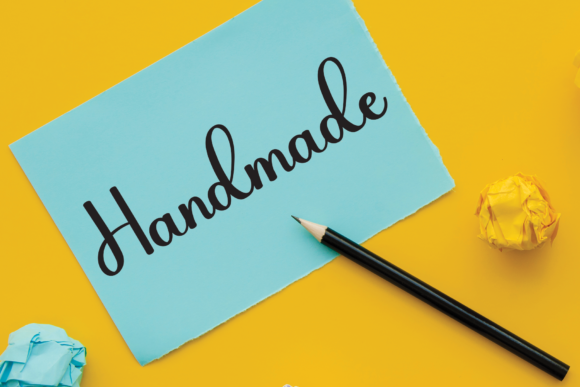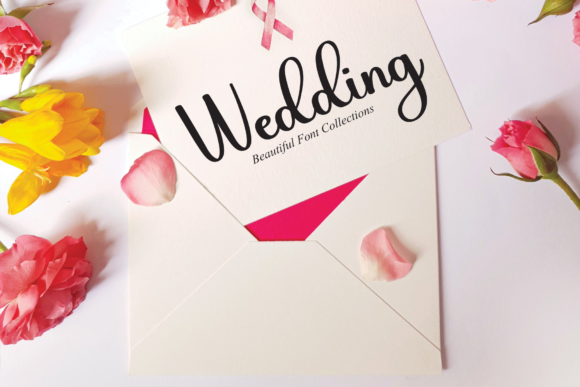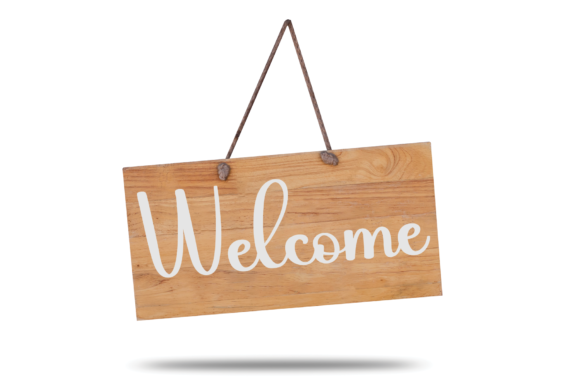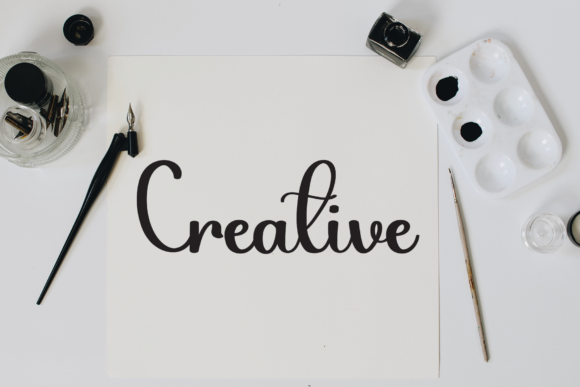
The Magical World of By One Font: A Designer’s Delight
I still remember the time I was working on a luxury branding project for a high-end jewelry client. I had spent hours perfecting the logo design, but something was missing. The font I had chosen just didn’t have that extra oomph I was looking for. That’s when I stumbled upon By One Font, and it completely transformed my design. In this article, I’ll share my love for this beautiful script font, its features, and how to make the most of it in your design projects.
An Honest Review of By One Font
What I Love About By One Font ✨
• 💃 **Elegant and Whimsical**: By One Font is a sweet, fluid, and thin script font that adds a touch of luxury to any design project.
• ✅ **Unique Character**: The font features characters dancing along a baseline, giving it a playful and eye-catching feel.
• 🌈 **Versatile**: Perfect for branding, packaging, invitations, and more, By One Font can elevate a wide range of design projects.
• 💻 **Easy to Read**: Despite its whimsical nature, the font remains clear and readable, even at smaller sizes.
• ⚠️ **Limited Use in Body Text**: Due to its script nature, By One Font might not be the best choice for lengthy body text. It’s better suited for headings or titles.
• 🤔 **Kerning Issues**: As with any script font, you might encounter kerning issues. Make sure to adjust the tracking and kerning in your design software to achieve the best results.
The Backstory of By One Font
By One Font was designed with the intention of creating a beautiful, elegant, and whimsical script font that would add a touch of luxury to any design project. The designer aimed to craft a font that would evoke a sense of playfulness and sophistication, making it perfect for creative projects that require a unique and eye-catching feel.
What is By One Font best used for? By One Font is perfect for luxury branding, packaging, invitations, and more. It’s ideal for projects that require a touch of elegance and whimsy.
Is By One Font suitable for body text? No, By One Font is better suited for headings or titles due to its script nature. For lengthy body text, consider using a more traditional font.
Does By One Font support OpenType features? Yes, By One Font supports OpenType features, such as stylistic alternates, swashes, and ligatures. Experiment with these features to add more personality to your design.